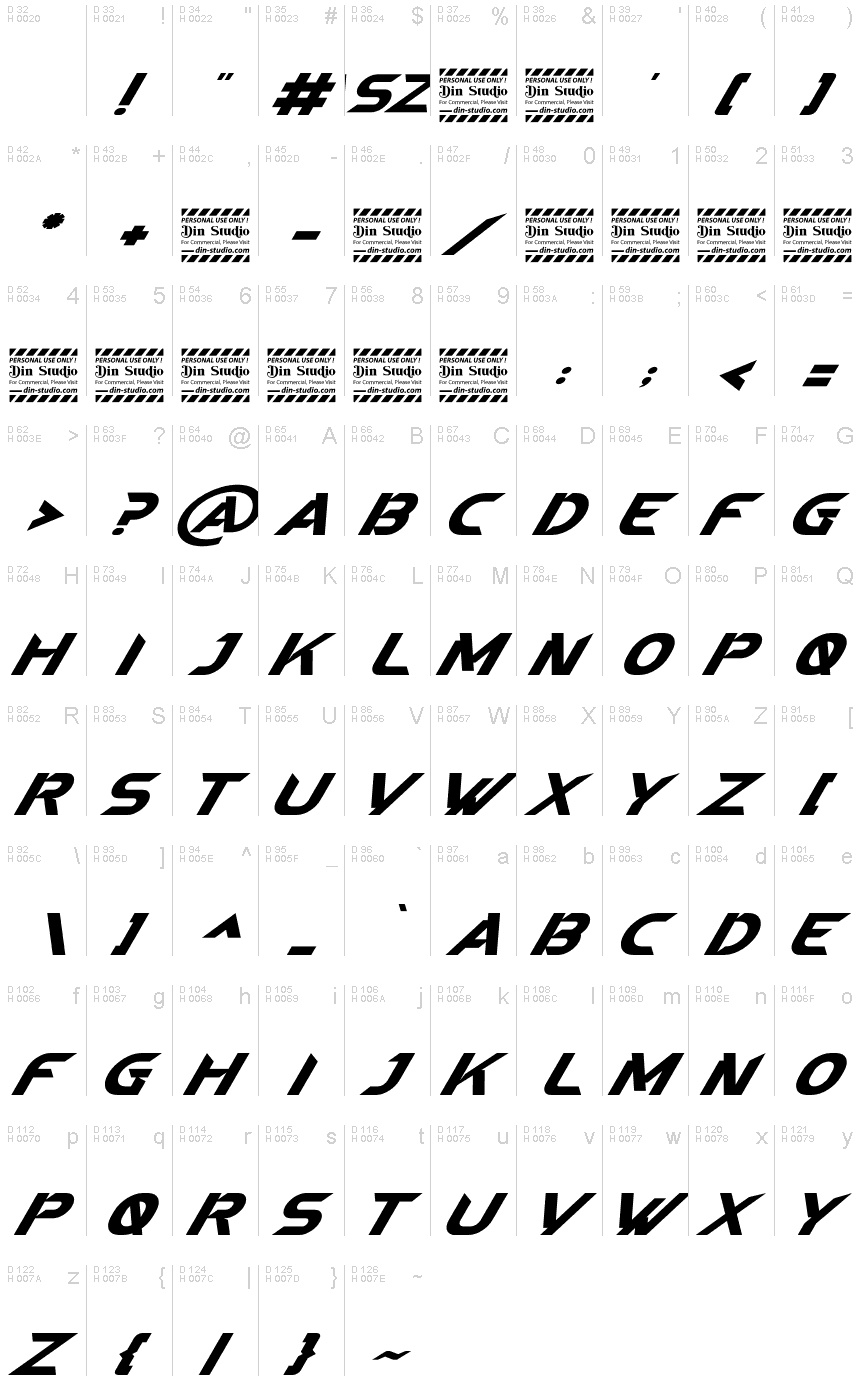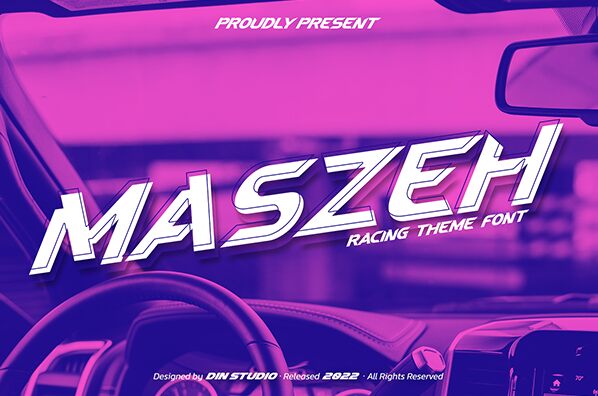
Maszeh, a creation of Din Studio, stands out as a display font with a distinctly techno style. Its semi-bold weight is perfectly balanced by an expanded width, giving it a commanding presence on any canvas. The aesthetic appeal of Maszeh lies in its modern dynamism—sharp angles and clean lines converge to offer an avant-garde look that captures the essence of contemporary design.
The font's character shapes suggest motion and energy, making it an ideal choice for projects that aim to convey innovation or forward-thinking concepts. Whether deployed in digital media, poster designs, or branding materials, Maszeh's signature style is versatile enough to enhance the visual narrative without overwhelming the content.
With its unique techno flair and bold structure, Maszeh promises to be a go-to asset for designers seeking to make a strong visual statement in their creative endeavors.